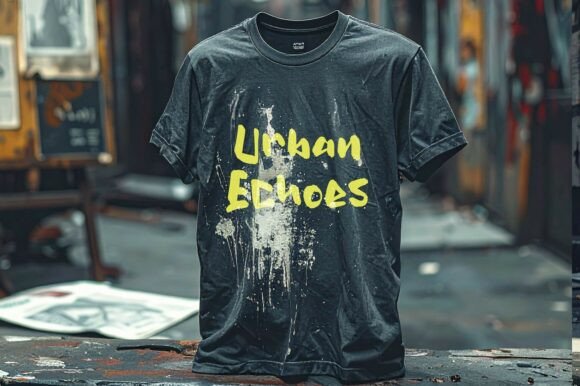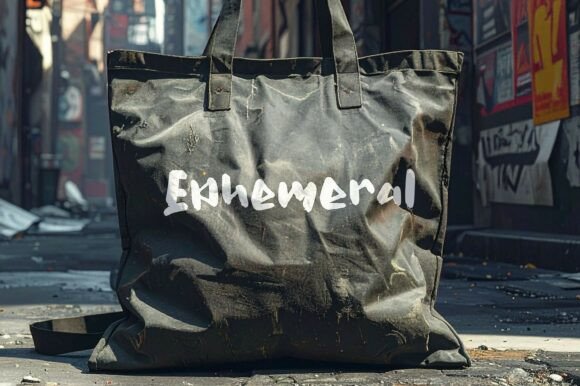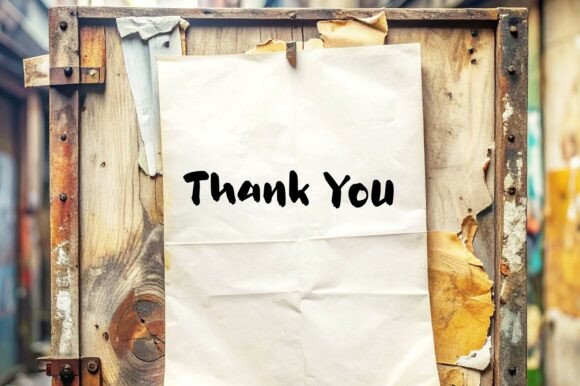
The Barefoot Font: A Rugged and Distressed Sans-Serif for Authentic Designs
In the world of typography, fonts play a crucial role in conveying the tone and personality of a brand or design. For those seeking a typeface that exudes authenticity, raw character, and a touch of ruggedness, the Barefoot font is an excellent choice. This wonderfully crafted sans-serif font has gained popularity among designers and crafters for its intentionally worn and textured appearance, which instantly evokes a sense of history, adventure, and connection to the great outdoors.
The Distinctive Characteristics of Barefoot Font
So, what makes the Barefoot font stand out from other typefaces? The answer lies in its deliberately distressed quality, featuring subtle imperfections, scuffs, and rough edges that mimic the look of aged print or weathered signage. This rugged aesthetic adds significant depth and a unique storytelling element to any design, suggesting a history or a connection to natural, untamed environments. The letterforms, despite their gritty appearance, remain clear and impactful, ensuring strong readability even in various contexts.
Perfect for Designs that Evokes a Vintage, Adventurous, or Rebellious Spirit
The Barefoot font is an excellent choice for designs that aim to evoke a vintage, adventurous, or rebellious spirit. Its worn and textured appearance instantly conveys a sense of authenticity, making it perfect for branding related to outdoor activities, artisan goods, casual wear, or any project that benefits from a handmade, unpolished, and distinctly non-corporate feel. Whether you’re designing a logo, packaging, or marketing materials, the Barefoot font allows you to stand out with its genuine, down-to-earth charm.
Why Designers and Crafters Love Barefoot Font
Designers and crafters love the Barefoot font for its versatility and ability to add a unique touch to their creations. The font’s distressed quality allows for a wide range of applications, from rustic and earthy to bold and attention-grabbing. Additionally, the font’s readability ensures that your message is conveyed clearly, making it an excellent choice for both digital and print designs.
Tips for Using Barefoot Font Effectively
To get the most out of the Barefoot font, consider the following tips:
- Use it for headlines or titles to add a bold, attention-grabbing touch.
- Pair it with clean, sans-serif fonts for a striking contrast.
- Experiment with different colors and textures to enhance the font’s distressed appearance.
- Consider using it for packaging, labels, or marketing materials to add a unique touch.
In conclusion, the Barefoot font is a unique and versatile typeface that can add a touch of authenticity and raw character to any design. Its intentionally worn and textured appearance makes it perfect for designs that aim to evoke a vintage, adventurous, or rebellious spirit. With its strong readability and distinctive characteristics, the Barefoot font is an excellent choice for designers and crafters seeking to create memorable and impactful designs.